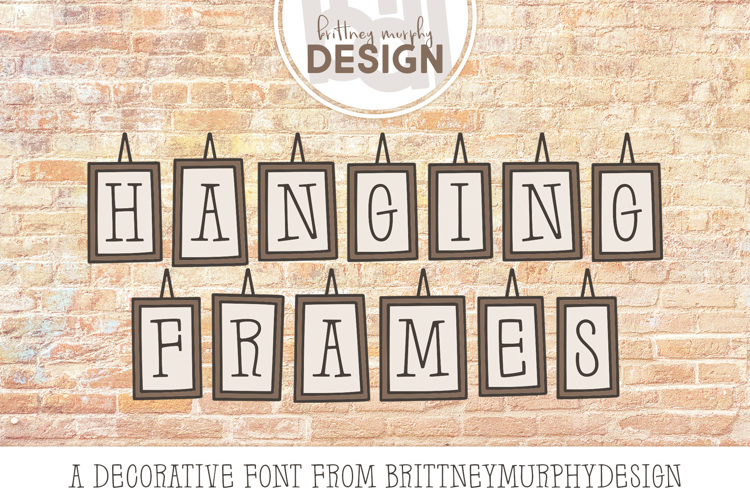
Hanging Frames Font
The Hanging Frames font family is a decorative set of fonts featuring letters in frames. One, with hanging strings and one without. Use the ^ symbol for a blank frame!